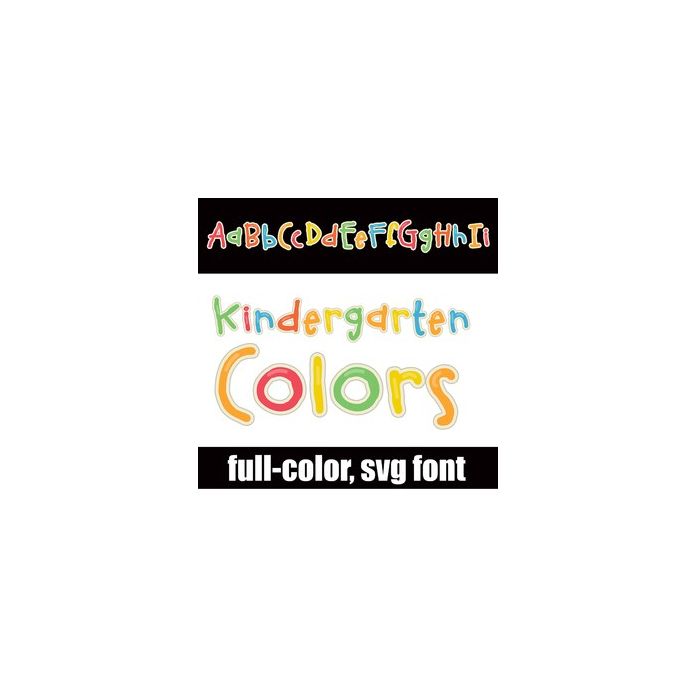
This childish, full-color font features very youthful letters in a kindergarten color palette. There is an alt case w/ additional colors you can access through your system or Silhouette's glyph map.